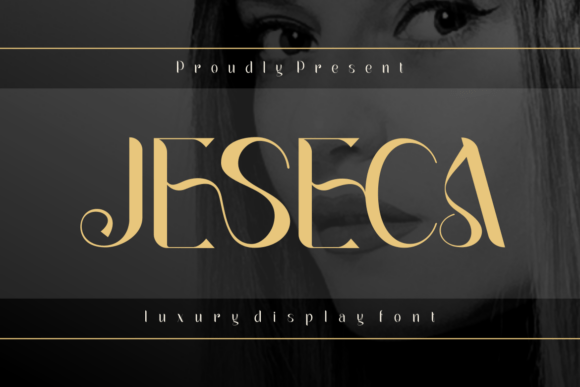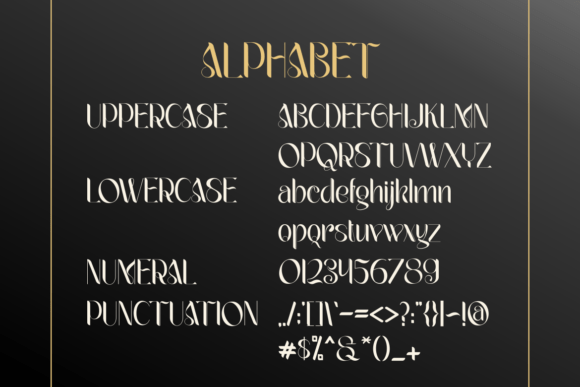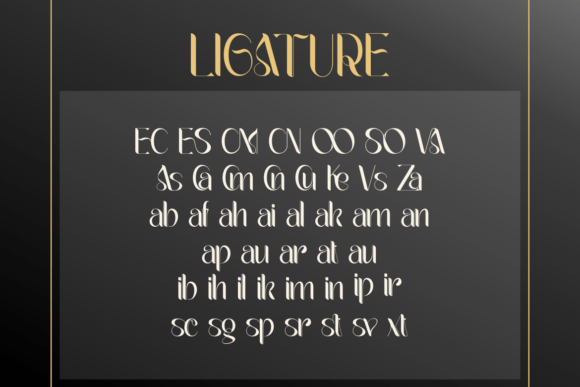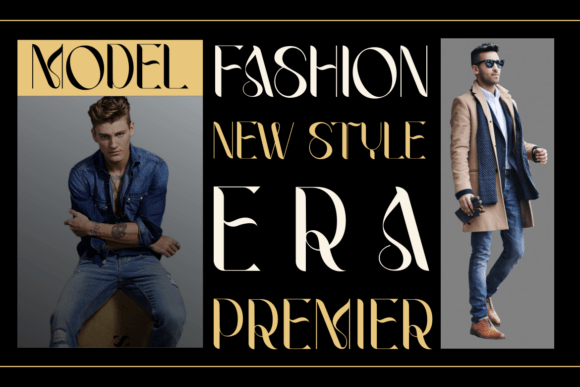
Jeseca Font: Elegant Display Font for Luxury Branding & Logo Design
About the Jeseca Font
The Jeseca Font is here to transform your projects with its distinctive character and style. Jeseca is a sophisticated and elegant display font with a luxurious and stylish feel. Featuring graceful curves and refined details, this font is perfect for branding, fashion, high-end logos, wedding invitations, and editorial designs. Its modern yet timeless aesthetic adds a touch of class to any project.
Jeseca’s elegant curves and refined details make it ideal for headlines, short text blocks in marketing materials, and high-impact branding elements. It excels in applications requiring visual sophistication, such as logos, packaging for luxury goods, and short-form editorial pieces. However, its delicate nature makes it unsuitable for body text or extended reading. Its stylish forms could be easily lost at smaller sizes within UI contexts.
Pairing Jeseca successfully hinges on balancing its inherent elegance. Consider pairing it with a clean sans-serif like Montserrat for a modern feel, or a warm, neutral serif such as Lora for a classic, sophisticated look. A geometric sans-serif like Futura would offer a contrasting yet complementary modern edge. Avoid overly playful or heavily decorative fonts that would compete with Jeseca’s refined aesthetic.
Jeseca projects a sophisticated and luxurious personality. It’s a font best suited for brands aiming for a premium, high-end image, emphasizing quality and timeless style. Its refined nature makes it a strong choice for projects focusing on elegance, exclusivity, and understated luxury.